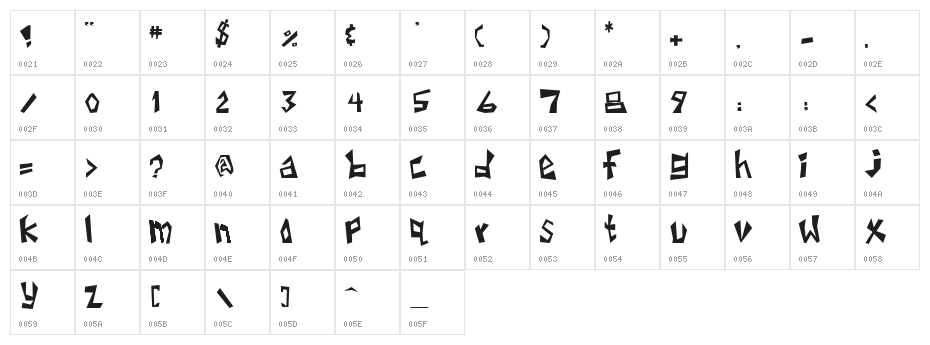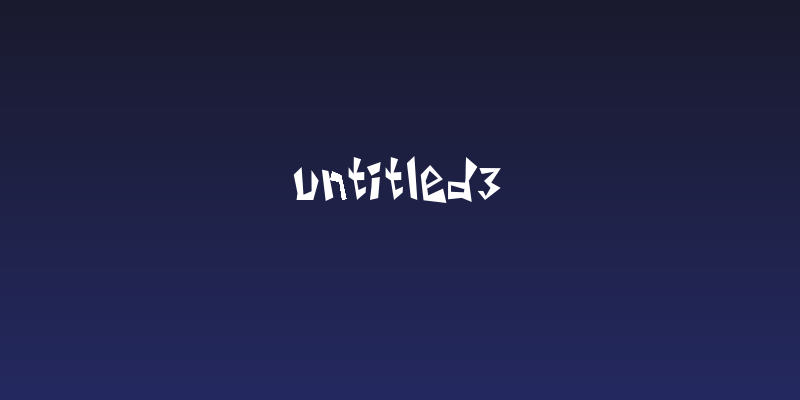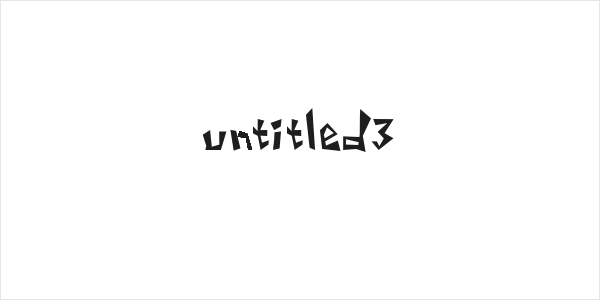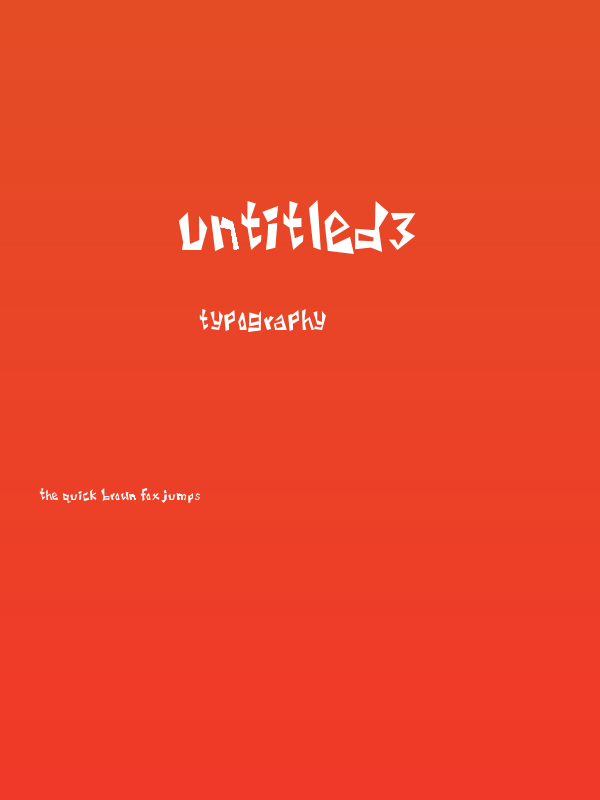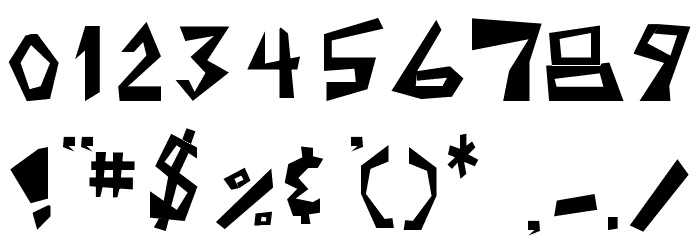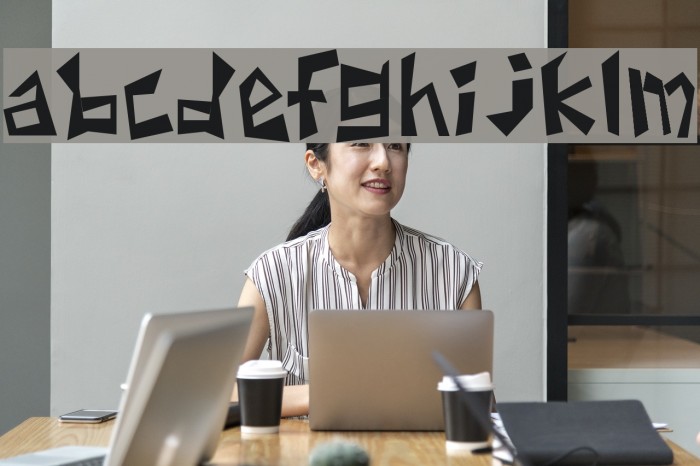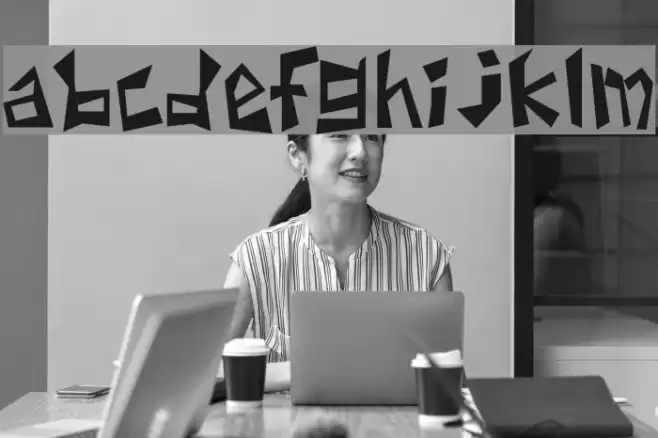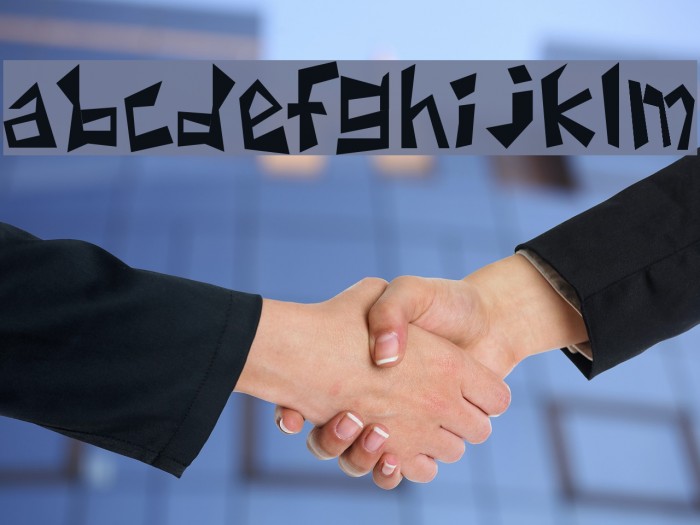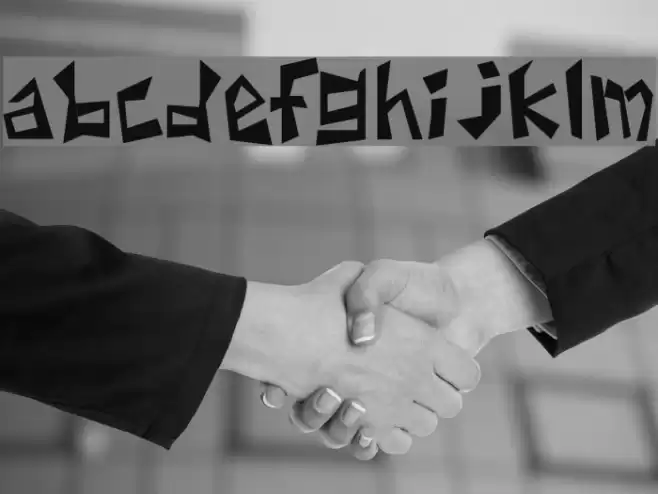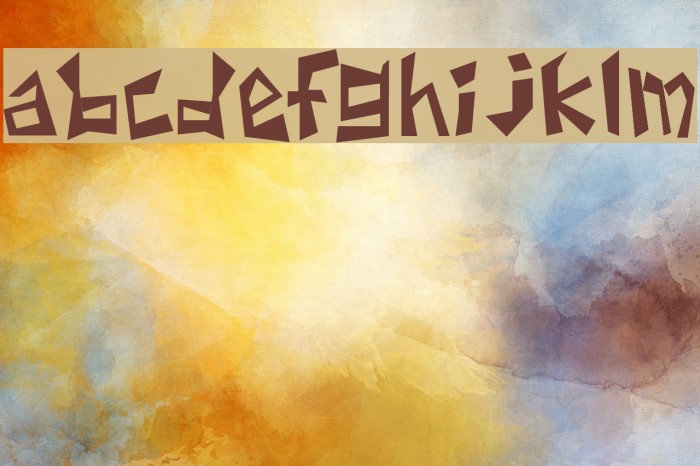
untitled3 Font
untitled3 Description
This font features a bold, angular design with a distinctly modern and edgy appearance. The characters are constructed with sharp, geometric shapes that give them a dynamic and unconventional look. Each letter and number is uniquely crafted, with varying angles and cuts that create a sense of movement and energy. The font's style is reminiscent of abstract art, making it a striking choice for projects that require a bold visual statement. The uppercase and lowercase letters maintain a consistent design language, while the numbers and special characters complement the overall aesthetic with their similarly jagged forms.
| Proposed Projects | Ideal for album covers, posters, branding for edgy or modern products, and any design needing a bold, artistic touch. |